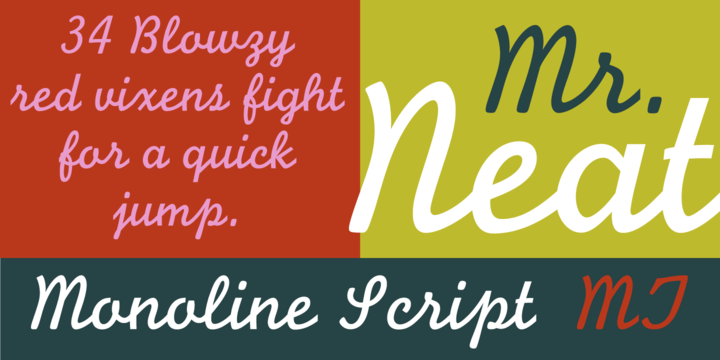
Monoline Script was designed for the Monotype Corporation in 1933.
A medium-weight script, it has lowercase letters that are very close together and a profusion of loops in the ascenders. The capitals are very informal and also have loops and curlicues that give Monoline Script a cheerful look.
Monoline Script can be used for announcements, invitations, and other informal work.